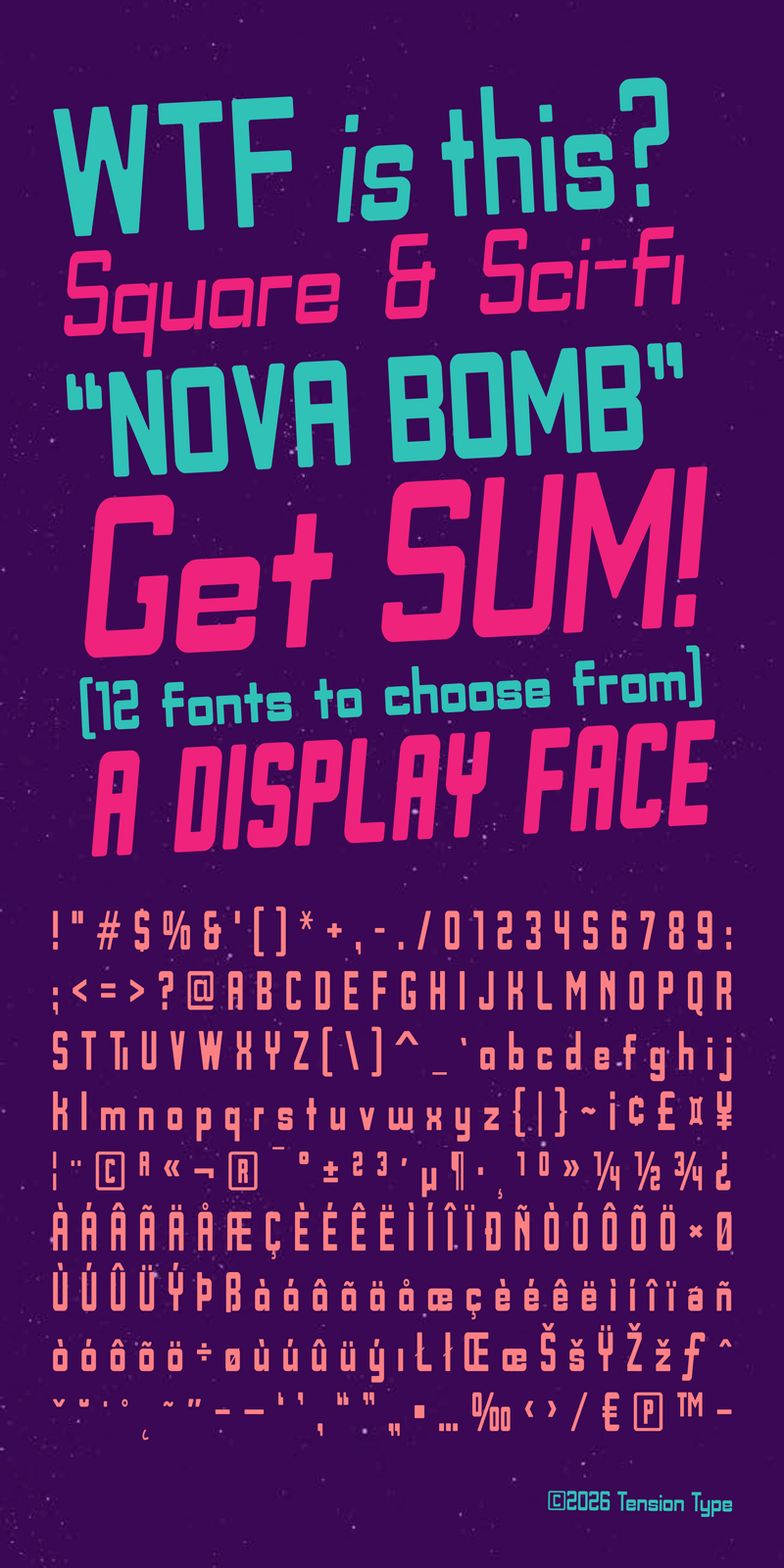
Nova Bomb
Tension Type · Regular, Bold Condensed Oblique, Bold, Condensed Bold, Semi Bold Condensed Oblique, Semi Bold Condensed, Semi Bold Oblique, Semi Bold, Condensed Oblique, Oblique · Nova Bomb
This type design was based on a sketch I did a bunch of years ago. It was initially intended as a hand drawn typeface. I started it, but I never really made any progress. In 2026 I decided to give it another shot. It’s a bit sci fi, a lot square. Good for large text and logos etc. Not intended for body copy at all.